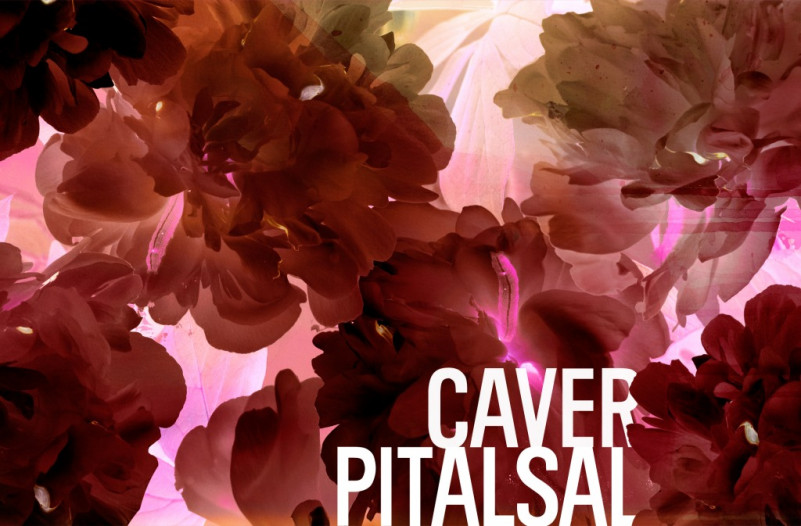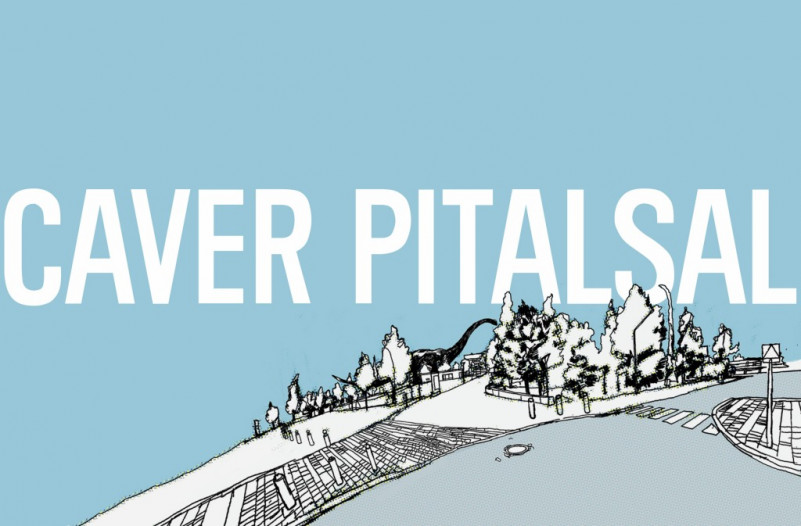
Caver Pitalsal Font
Caver Pitalsal Sans Serif Font, This font is perfect for any of your creative projects and will help make your designs stand out. The font is ideal for your readers as it is easy to read and is ideal for branding, product packaging or just to add a little flair to your editorial work.